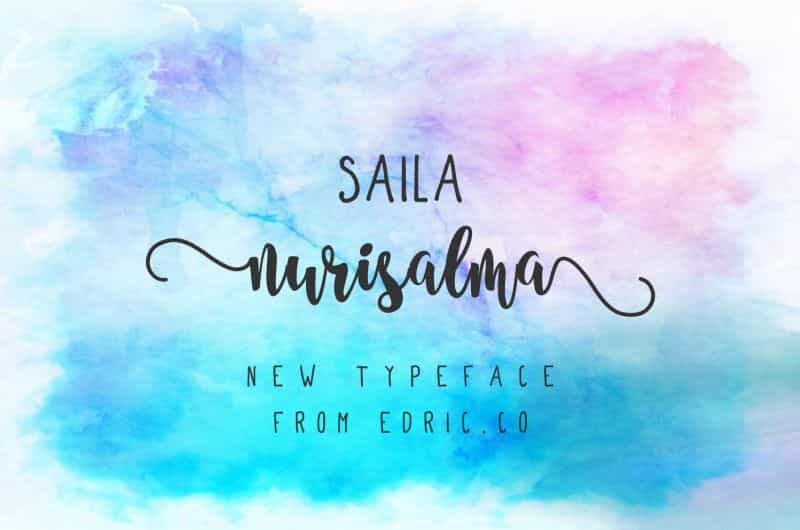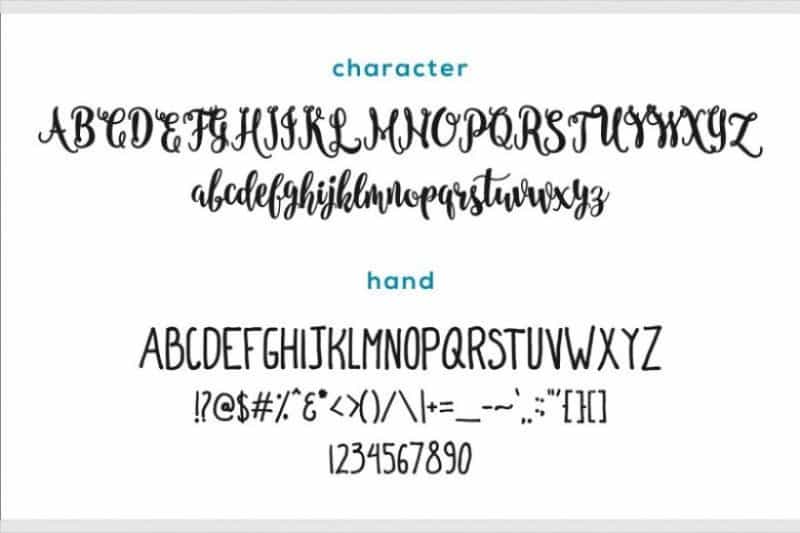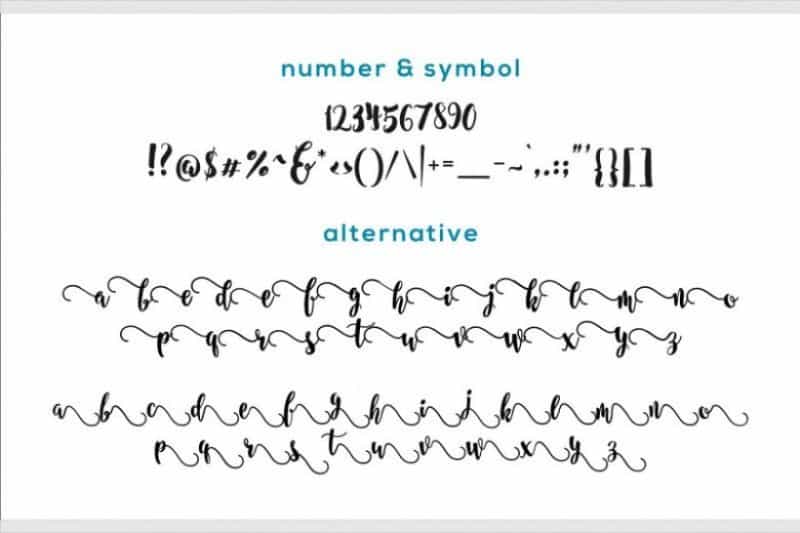
We are so happy to present our second font Saila Nurissalma. Saila Nurissalma has two fonts with different styles. One : Handwriting script font Two : A sans look like font